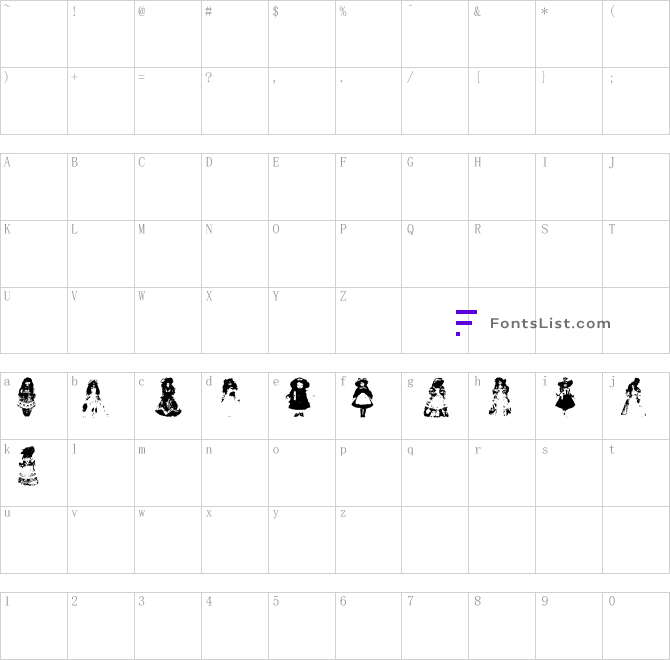
- Font Name:AEZ toy dolls
AEZ-toy-dolls.ttf is a very beautiful artistic font, AEZ-toy-dolls.ttf is widely used in the design and printing of various books and pictures,AEZ-toy-dolls.ttf has a strong visual impact,AEZ-toy-dolls.ttf is a commonly used font in newspapers, magazines and books, and is used in posters, e-commerce Poster design, store design, logo design, font design and other fields.AEZ-toy-dolls.